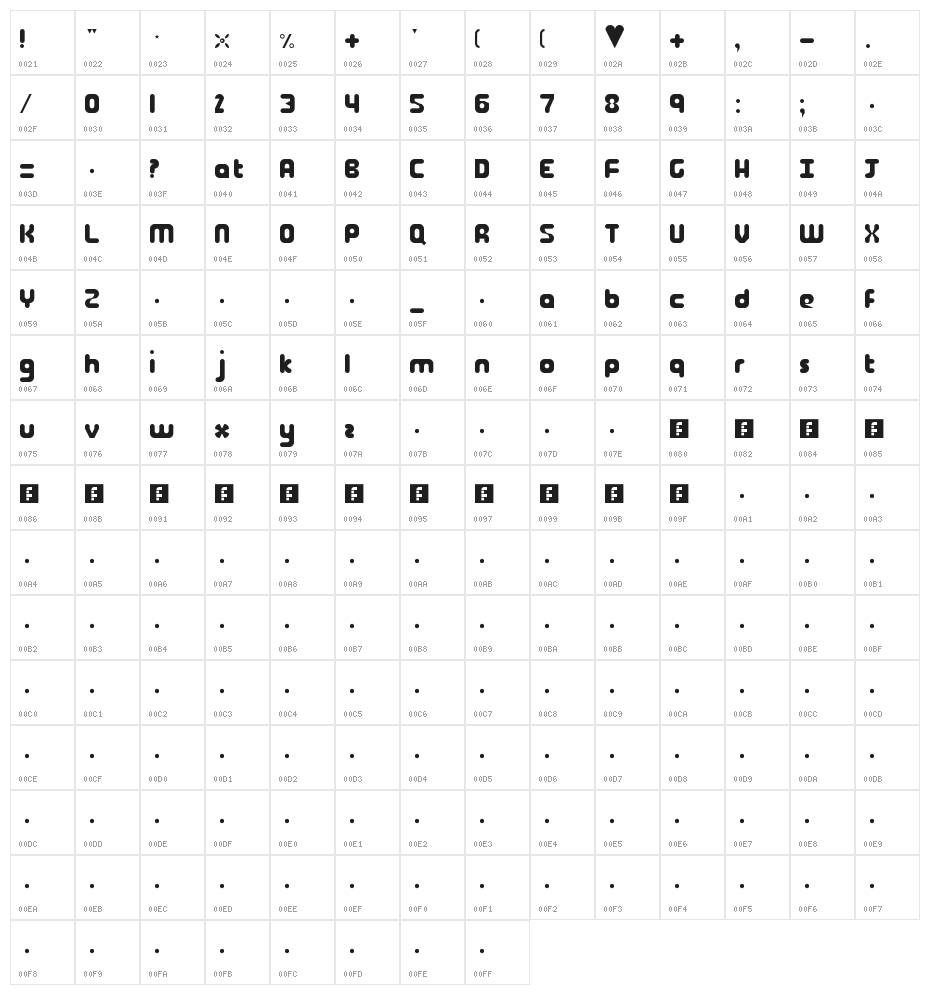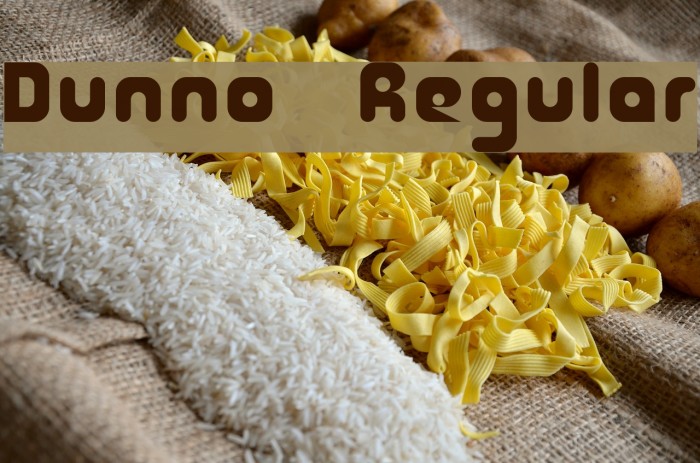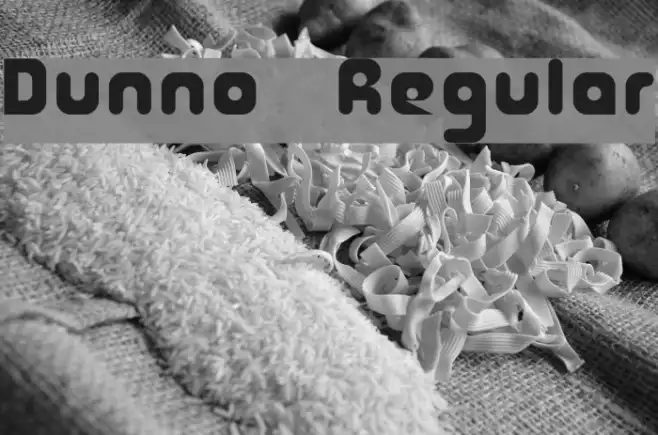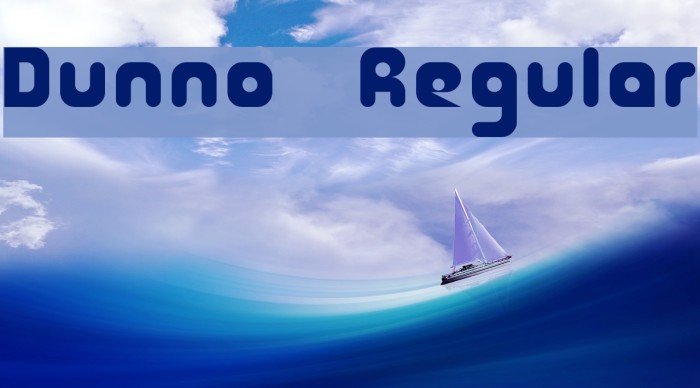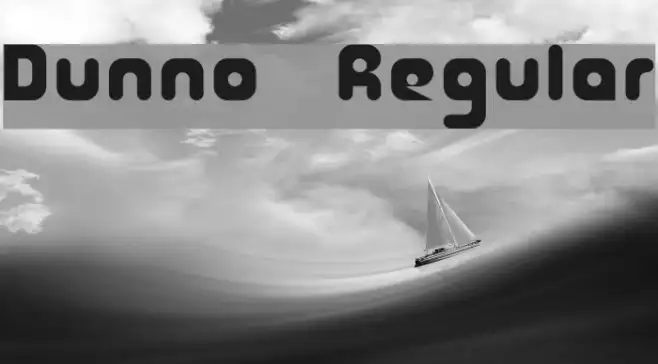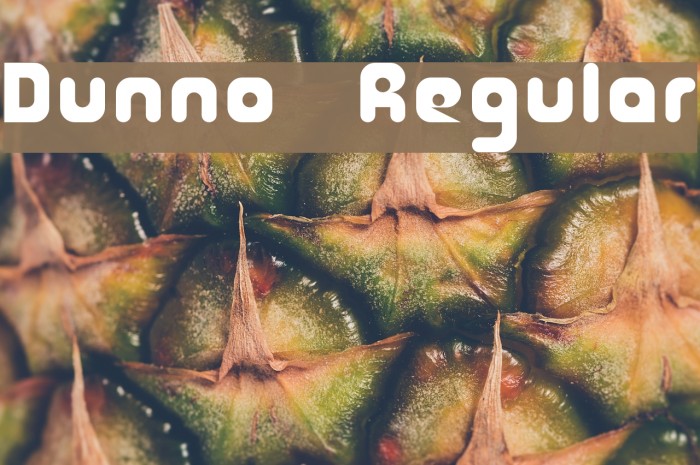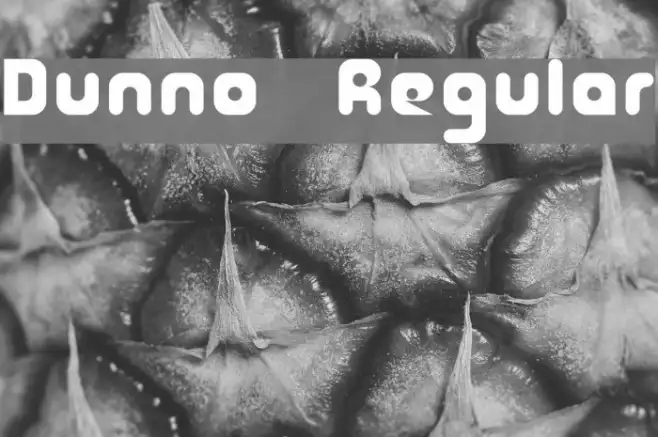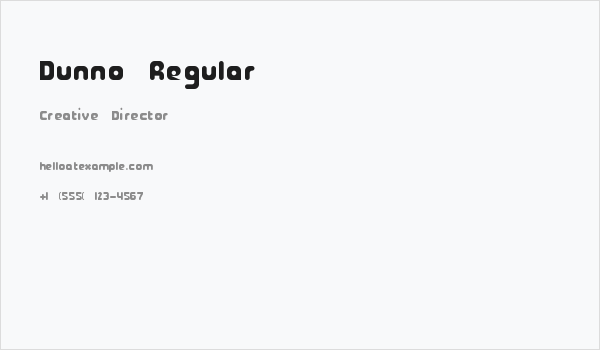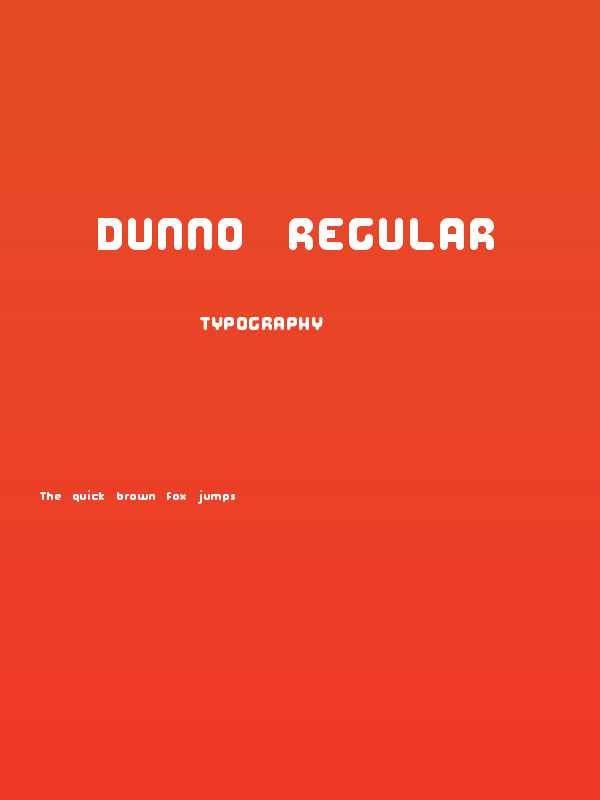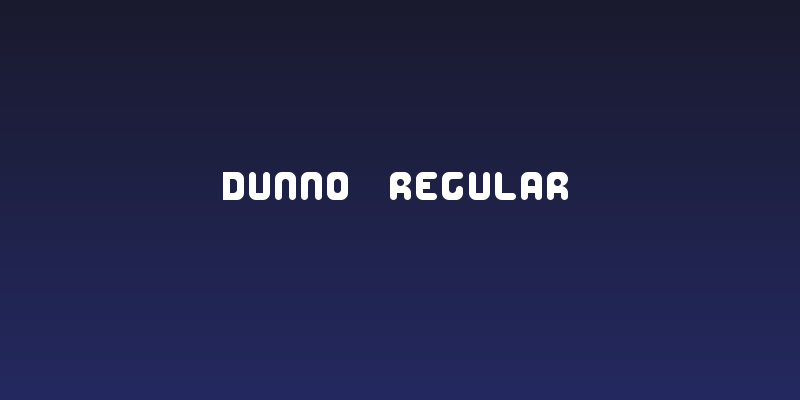
Dunno Regular Font
Dunno Regular Description
This font features a bold and rounded style with a playful and modern aesthetic. The characters are uniformly thick, giving it a strong presence on the page. The rounded edges and smooth curves create a friendly and approachable look, making it suitable for various creative projects. The font maintains consistent stroke weight throughout, ensuring readability while adding a touch of whimsy. Its geometric shapes and clean lines make it versatile for both digital and print media. The overall design is simple yet impactful, ideal for grabbing attention in headlines or logos.
| Proposed Projects | Ideal for children's books, playful branding, posters, and social media graphics. |